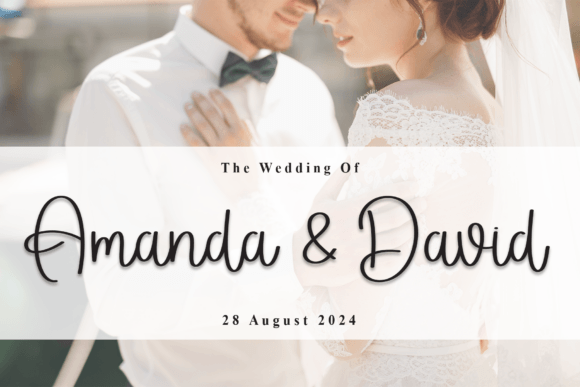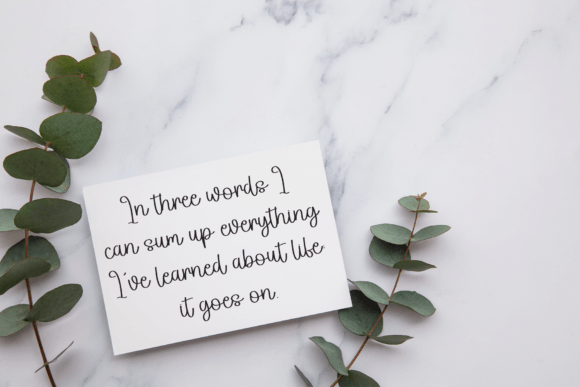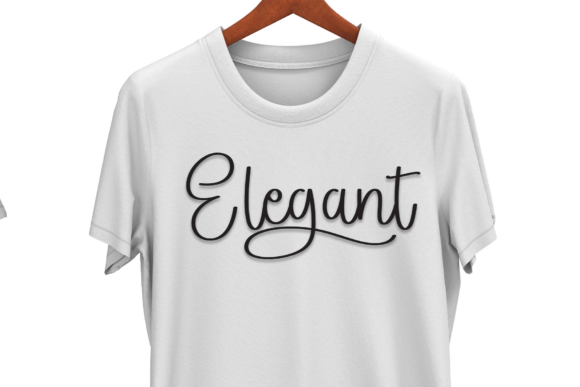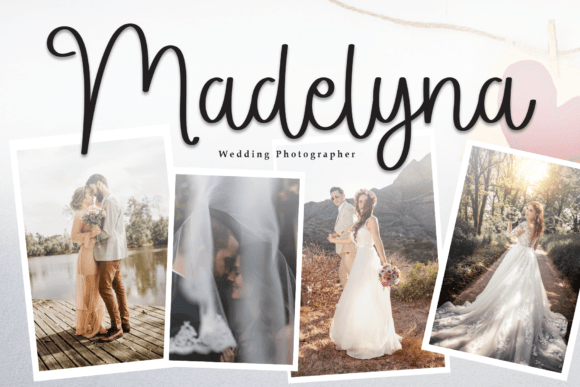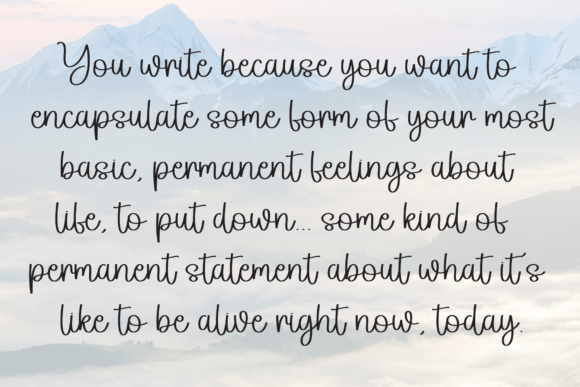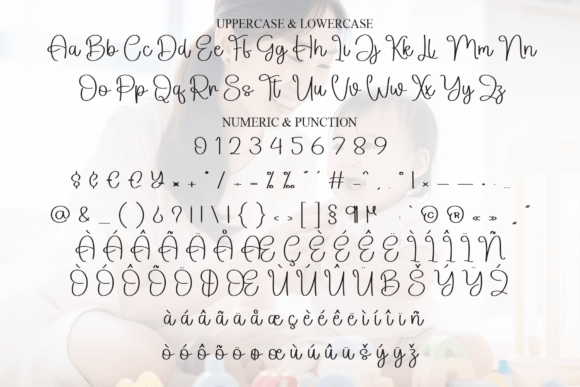
Introducing the Perfect Match for Your Next Project: Babysitter Font
As a designer, have you ever found yourself stuck on a project that requires a certain je ne sais quoi? A spark that brings your design to life and connects with your audience? For me, it was a children’s book illustration project that needed a font that exuded warmth and playfulness. That’s when I stumbled upon the delightful Babysitter Font.
With its charming handwritten style and smooth, natural strokes, the Babysitter Font is a perfect fit for any project that needs to evoke a sense of coziness and friendliness. Whether it’s a kids’ menu, a nursery decor, or a children’s clothing brand, this font is sure to bring a smile to your audience’s face. As a designer, you’ll appreciate the versatility and value of the Babysitter Font, which can add a personal touch to any project without breaking the bank.
Babysitter Font Key Features
- Font Family: Babysitter Font is a unique, hand-drawn sans-serif font designed specifically for use in childcare-related settings.
- Size: Offers a range of font sizes, from 8pt to 72pt, making it suitable for various applications, including signage, labels, and digital displays.
- Resolution: Designed to be scalable and legible at high resolutions, ensuring clear readability on screens and printed materials.
- Unique Characteristics: Features a playful, child-friendly design with rounded edges and a soft, cursive feel, making it perfect for creating a warm and welcoming atmosphere in childcare settings.
Babysitter Font Review
I recently had the chance to work with the Babysitter Font, and I wanted to share my honest thoughts on it.
✨ I love the playful and whimsical feel of the font. It’s perfect for creating a fun and approachable atmosphere, which is great for kids’ products, toys, or family-oriented brands.
✨ The font is well-suited for headings and titles, where it can really shine with its bold and colorful personality.
✨ The font includes a variety of glyphs and symbols, which adds to its charm and makes it more versatile.
⚠️ The font can be a bit overwhelming in large blocks of text, so be mindful of how you use it. It’s best to mix it with other fonts or use it sparingly.
⚠️ Some of the letters and symbols can be a bit tricky to read, especially in smaller sizes. Make sure to test it at different scales before using it in your design.
The Babysitter Font is a fun and playful addition to any design project. While it may have some limitations, it’s a great choice for brands and products that want to convey a sense of fun and approachability.
Overall, I would recommend the Babysitter Font for projects where a whimsical and youthful feel is desired.
- Playful and whimsical feel
- Well-suited for headings and titles
- Includes variety of glyphs and symbols
- Can be overwhelming in large blocks of text
- Some letters and symbols may be tricky to read in smaller sizes
Babysitter Font: A Practical Application Guide
Open your PowerPoint or Word document and select the “Font” dropdown menu. Choose the “Babysitter Font” and adjust the font size and color to your liking. To get the most out of it, use the font in combination with colorful graphics and animations to create a engaging presentation.
The Babysitter Font is perfect for:
- Children’s birthday party invitations
- Playground signs
- Children’s books and magazines
- Fun and playful marketing materials
Experiment with different font sizes and colors to create a unique and eye-catching design. Use the font in combination with bold graphics and bright colors to create a dynamic and engaging design. Don’t be afraid to get creative and have fun with it!
Alternatives to Babysitter Font
Pacifico is a beautiful, elegant script font perfect for creating a warm and inviting atmosphere. It is ideal for use in wedding invitations, branding, and packaging. Pacifico is more elegant and sophisticated compared to Babysitter Font, which has a more playful and casual feel.
The Babysitter Font supports a wide range of languages, including Latin, Cyrillic, and Greek. It also includes advanced OpenType features, such as ligatures, swashes, and stylistic sets. For optimal display, we recommend using a font size of at least 12 points and a resolution of 72 dpi or higher.